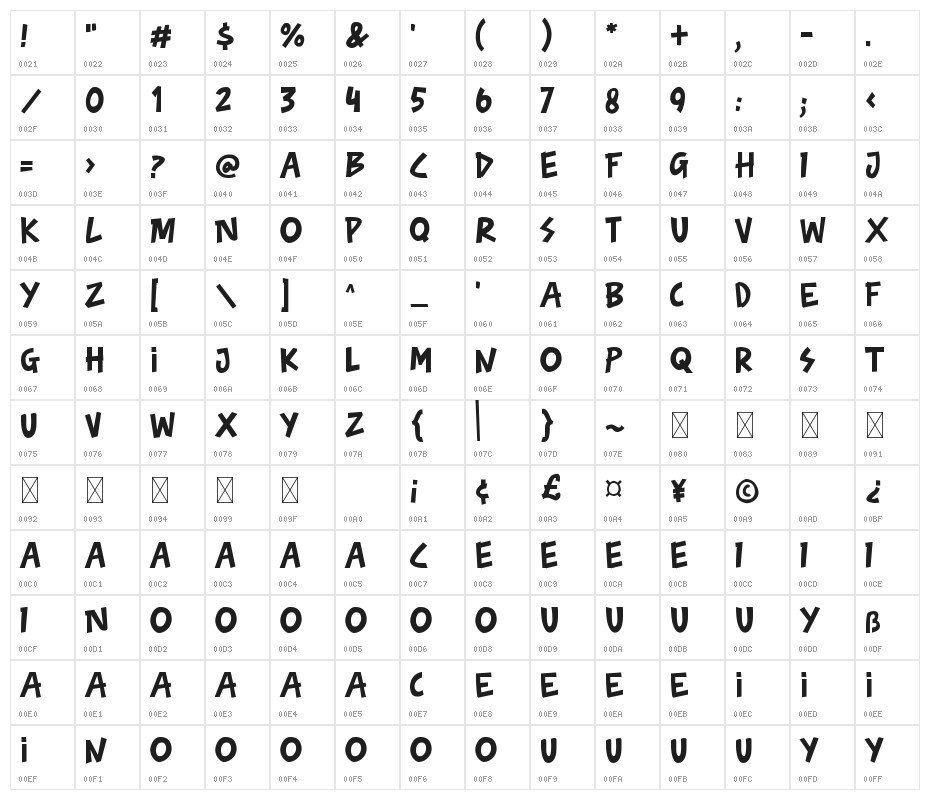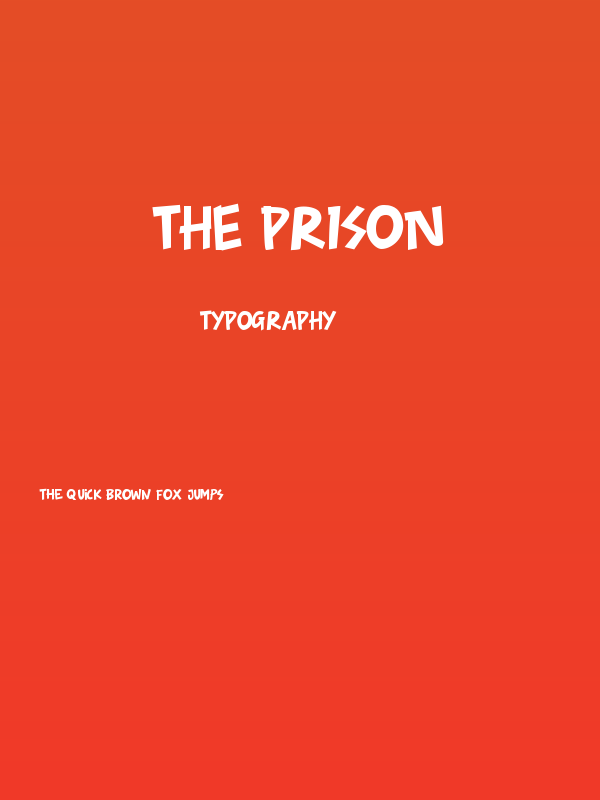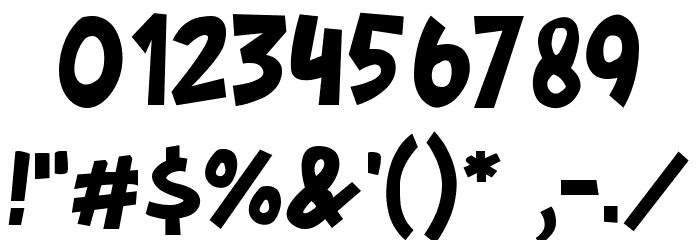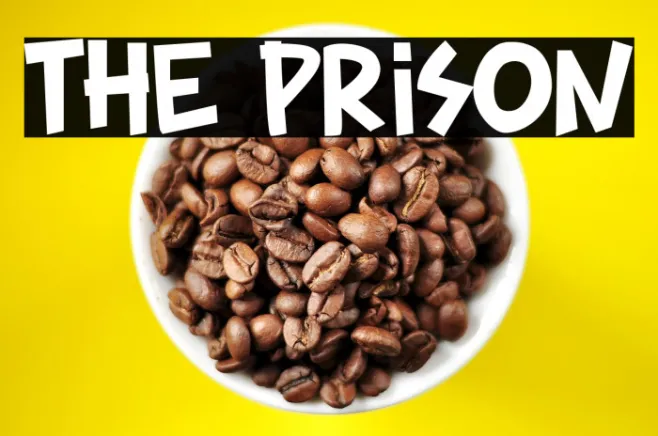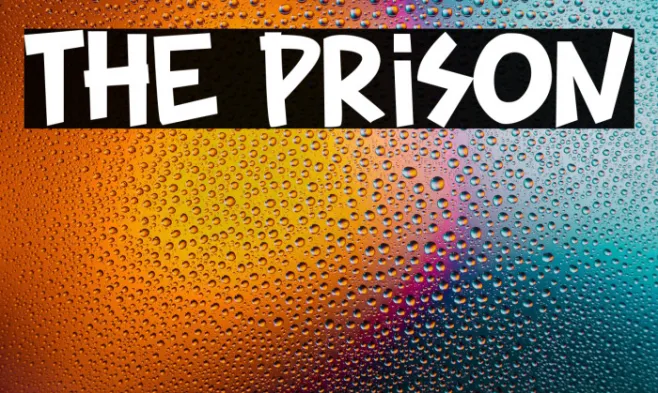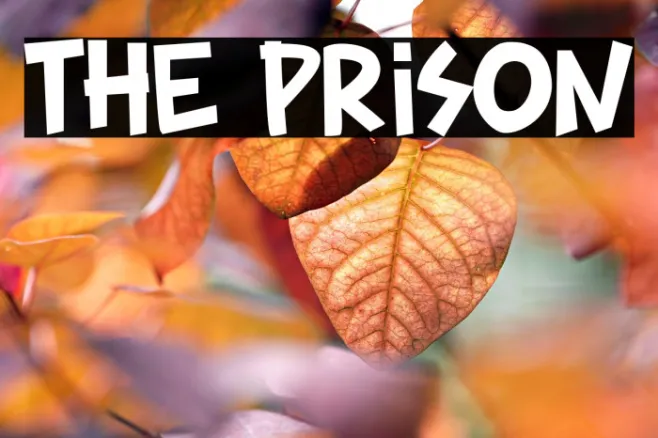
The Prison Font
The Prison Description
This font features a bold and dynamic style with a playful, slightly irregular form. The characters have a hand-drawn appearance, giving them a casual and informal vibe. The strokes are thick and consistent, contributing to a strong visual impact. The letters are slightly tilted and uneven, adding to the energetic and lively feel. This font is highly legible and stands out due to its unique and quirky design. It is well-suited for projects that require a fun and engaging aesthetic.
| Overall Style | Playful, Energetic |
| Use Case | Headlines, Posters, Branding |
| Proposed Projects | Ideal for comic books, children's books, posters, and playful branding. |